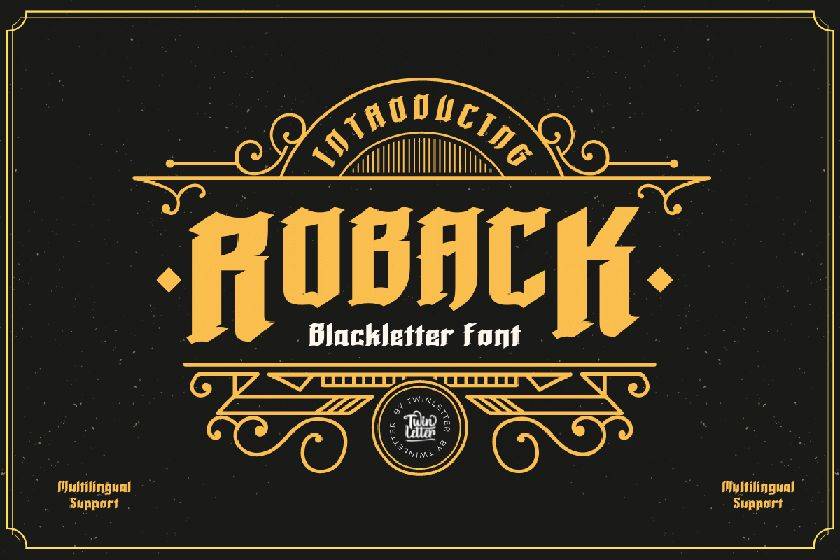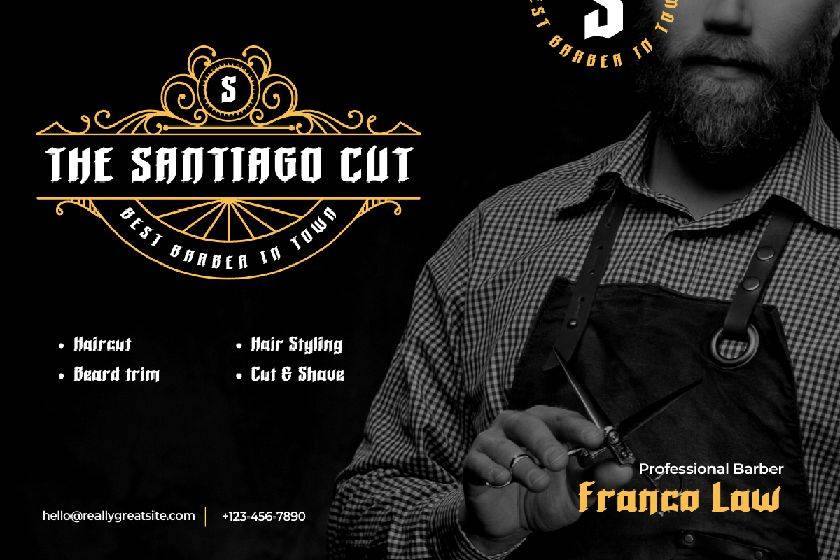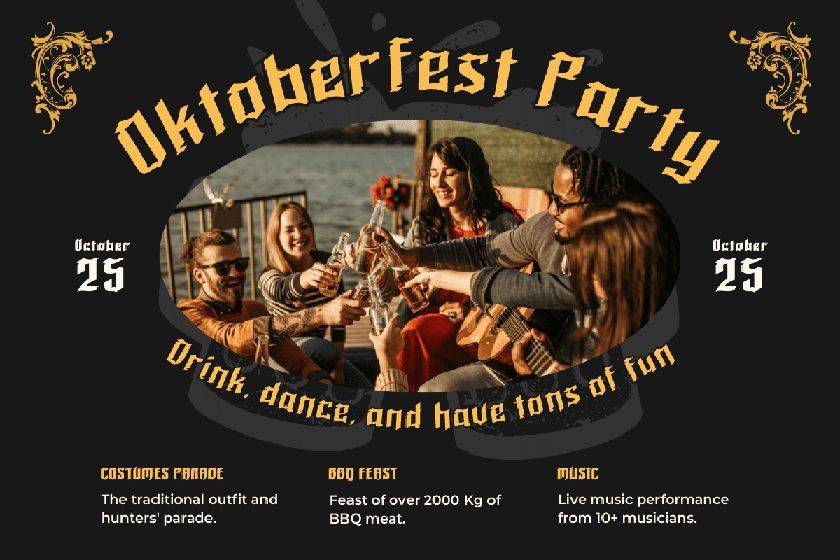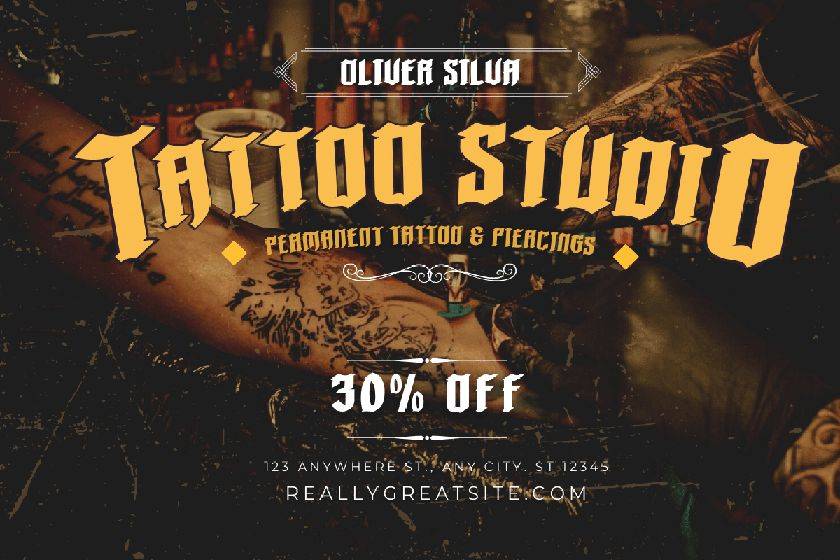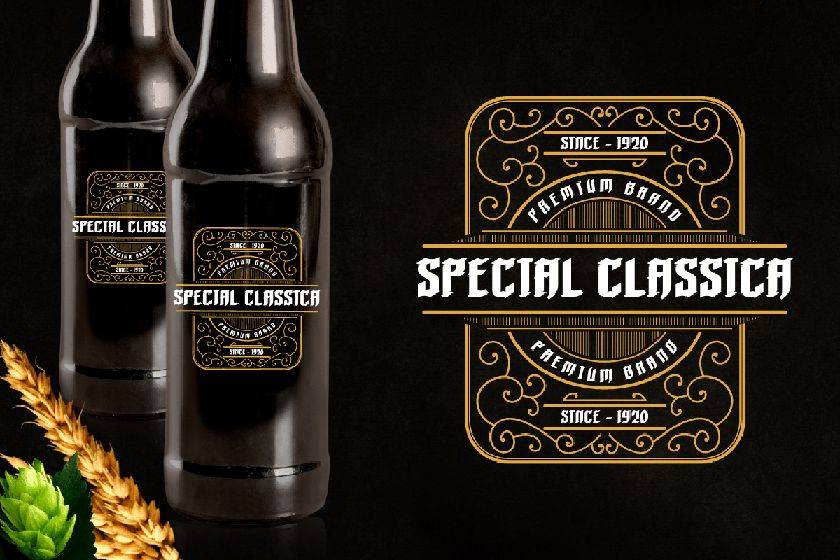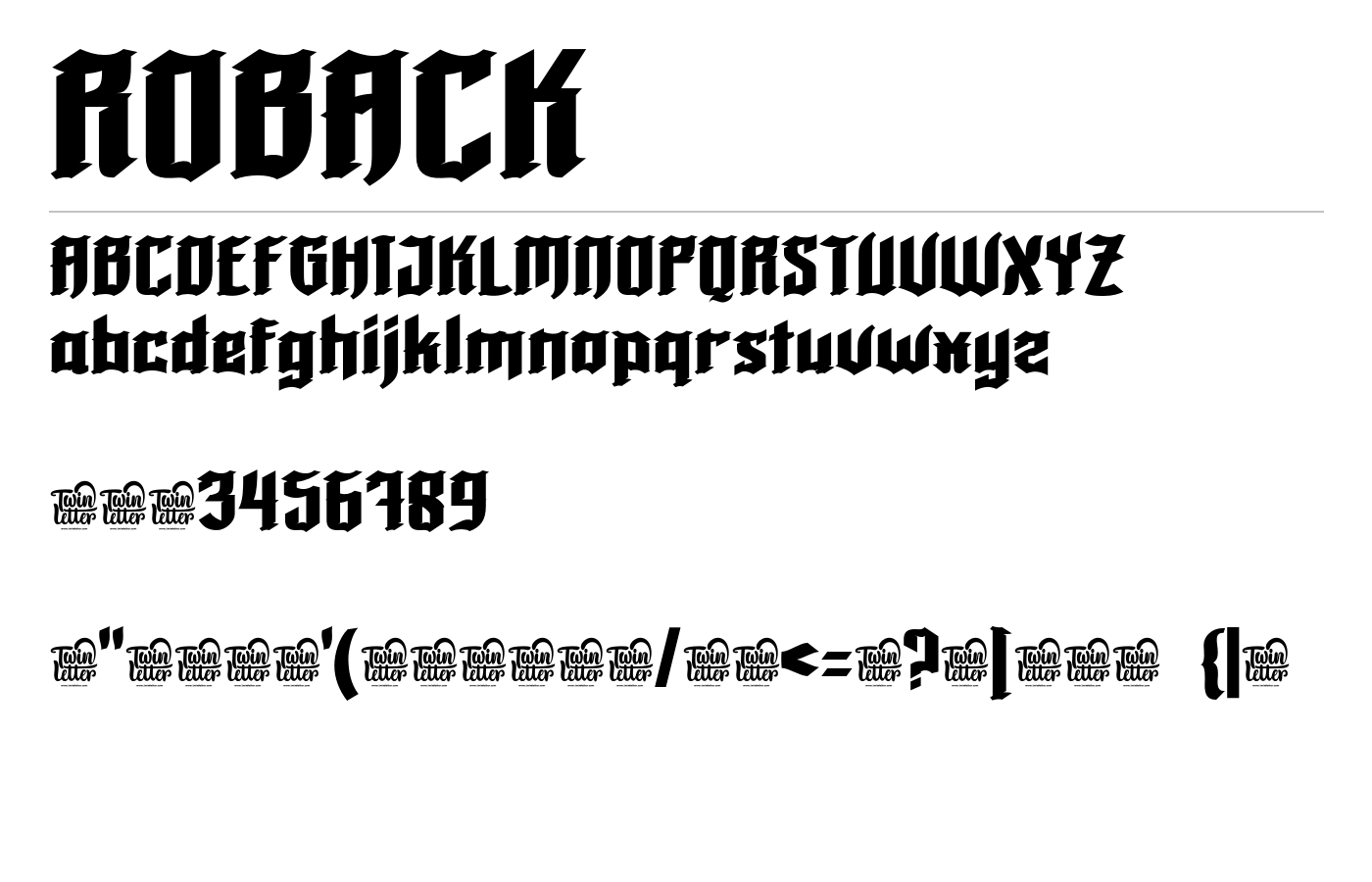
Roback is a bold, condensed blackletter font with sharp, angular strokes and a strong contrast between thick and thin lines. Its gothic style gives it a powerful and vintage feel, making it perfect for bold headlines, logos, and branding that want to convey tradition and strength. This font works especially well in designs needing a dramatic and authoritative tone, such as posters, tattoos, and fashion labels.
Roback Font
About Roback Font